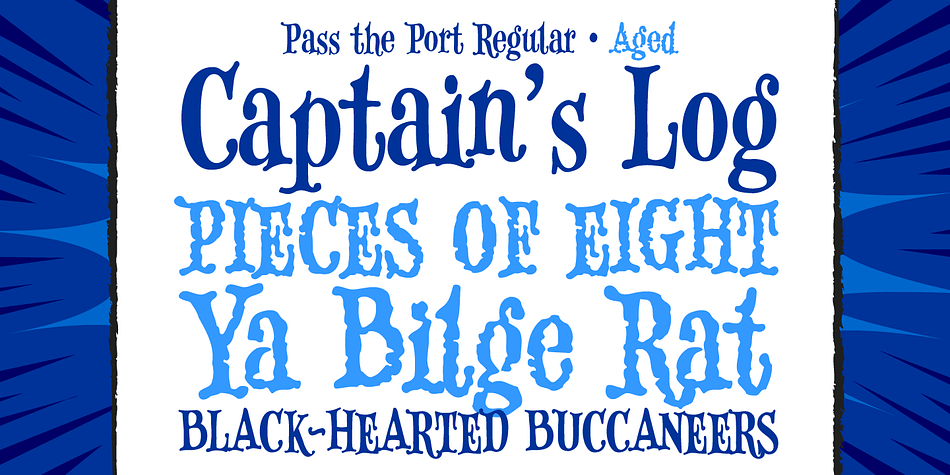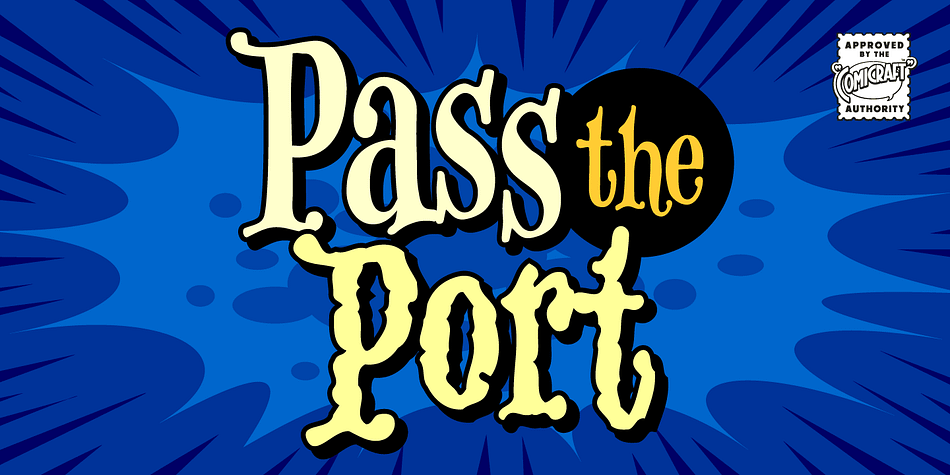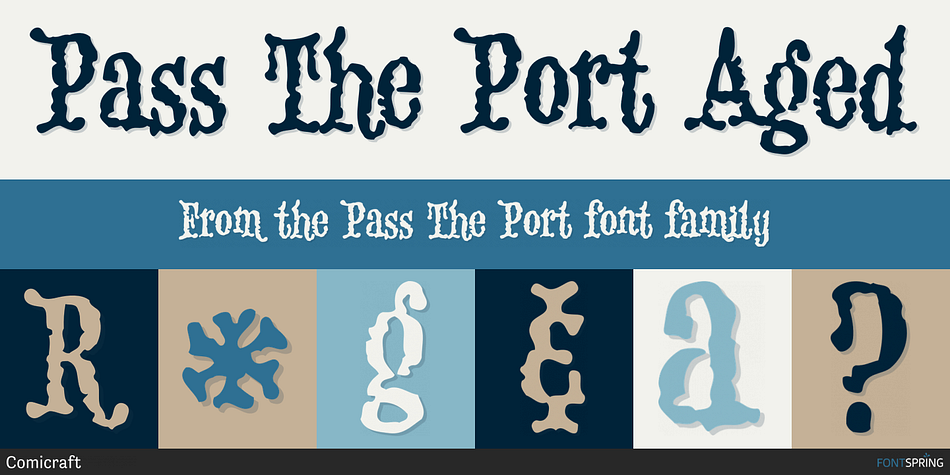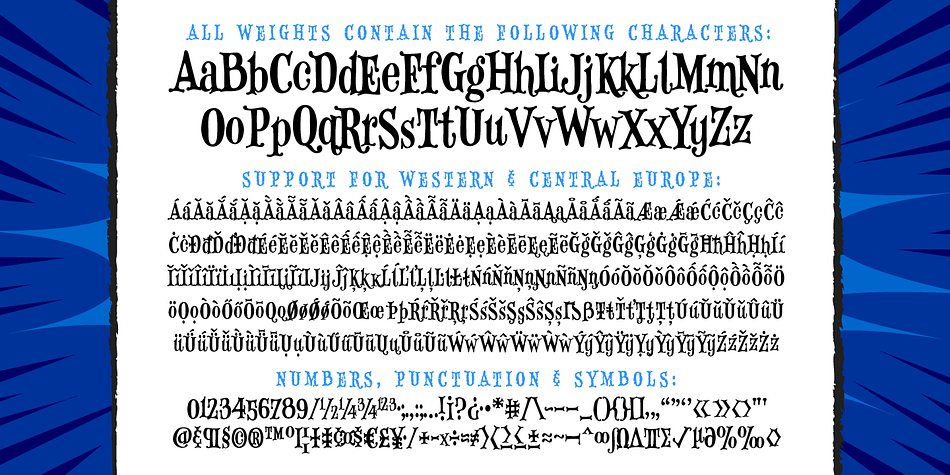
Designed by John Roshell, Pass The Port is a display serif font family. This typeface has two styles and was published by Comicraft.
There are Rum doings in the harbor tonight, me hearties! Black-hearted buccaneers are gatherin’ in the tavern and there’s talk of gunpowder, treason and plot. Even if there are ladies in the room, we advise that you Pass the Port, put away your pieces of eight and weigh anchor until the Pirates have Caribbean and gone.